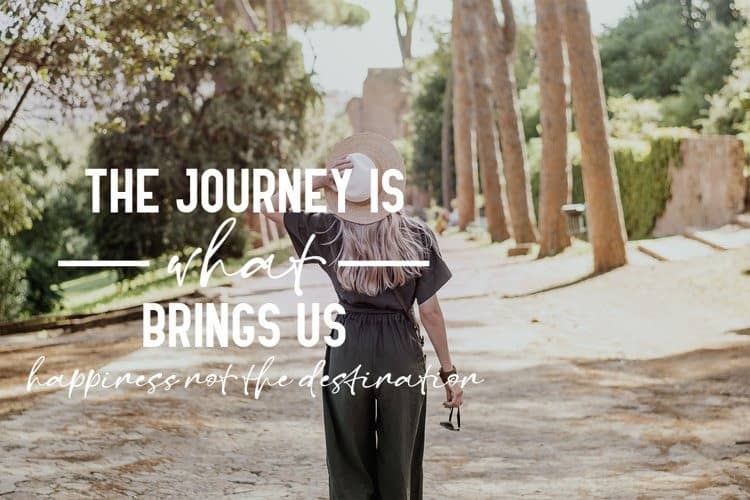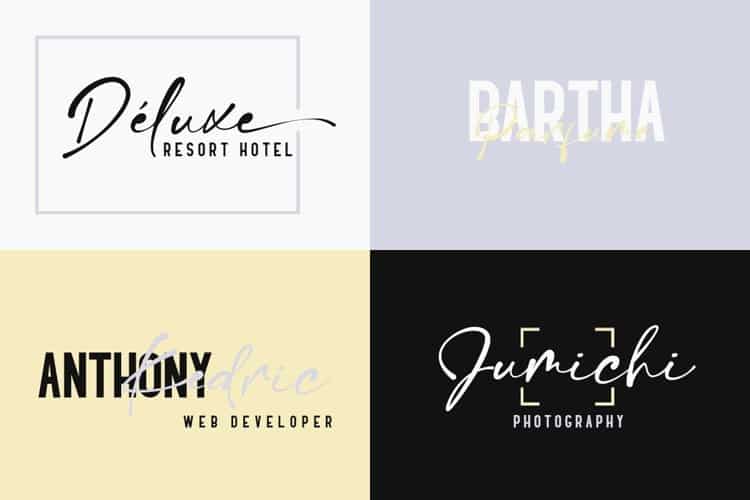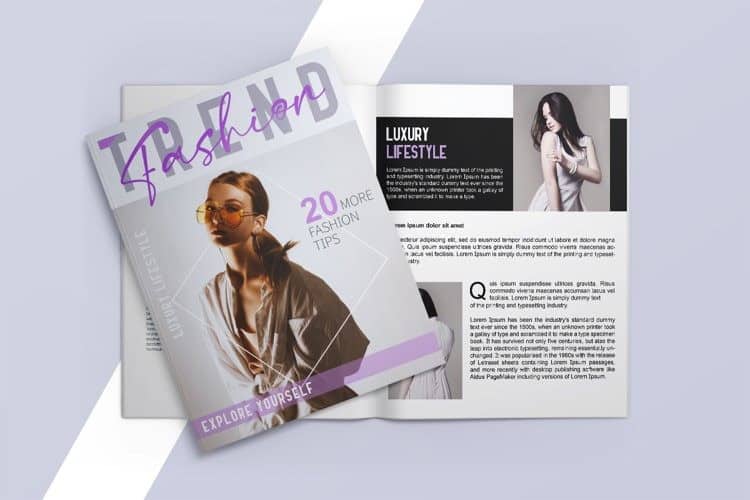
Sachi Font Duo is inspired by urban or freestyle artworks. Font combination with sans serif and script font in more versions. Sans Serif font work great with any vintage style branding projects.
Script comes with casual or marker style and lot of stylistic alternates you can create realistic headers. Both fonts also with rough font version & swashes. It works beautifully for personal branding, advertising or creative headers.